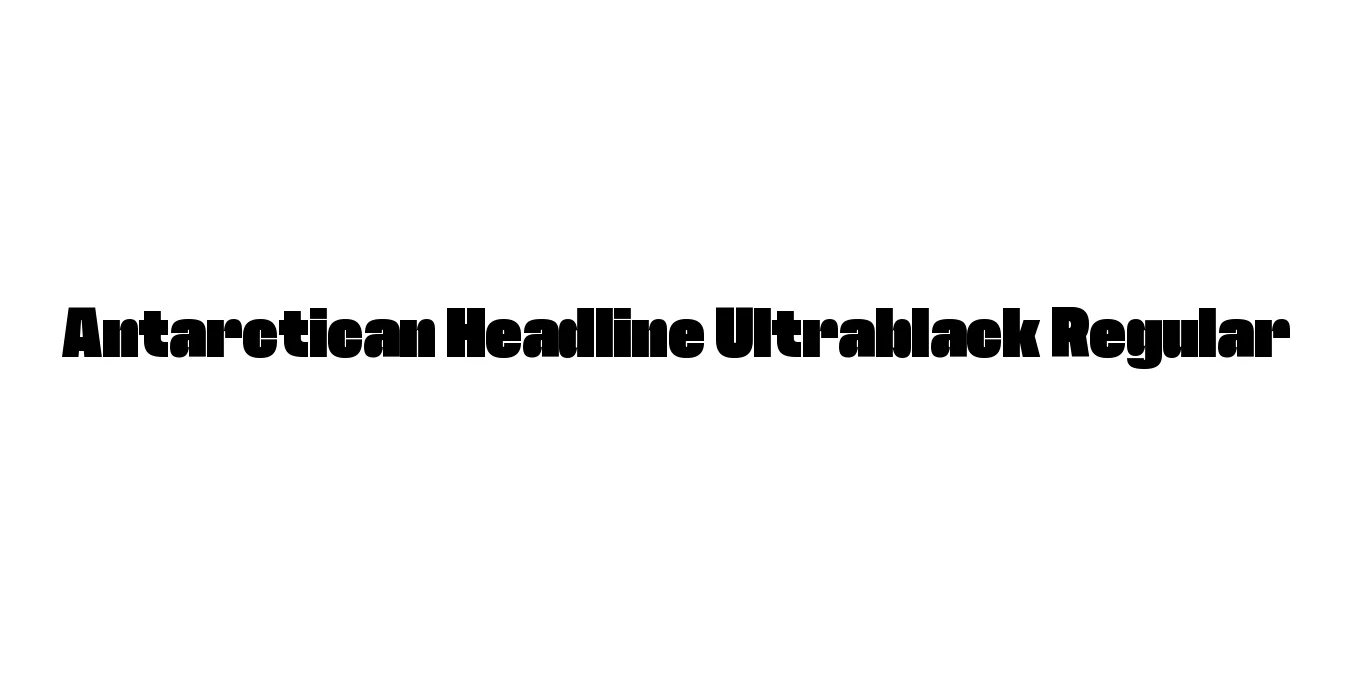
Antarctican Headline Ultrablack Regular
Designed by James Edmondson
| Font Name | Antarctican Headline Ultrablack |
| Designer | James Edmondson |
Antarctican Headline Ultrablack Regular is a powerhouse of a typeface, part of the larger Antarctican family designed by James Edmondson. Drawing inspiration from the rugged, functional lettering found on shipping containers and scientific equipment in the South Pole, this font prioritizes clarity and a raw, industrial aesthetic. The Ultrablack weight pushes the boundaries of stroke thickness, creating a dense and commanding presence that captures attention immediately.
As a Headline variant, this font is meticulously spaced and balanced for display use. It eliminates unnecessary flourishes in favor of geometric precision and high contrast against white space. Whether used in editorial layouts or digital interfaces, it conveys a sense of modern authority and durability, making it an essential tool for designers looking for a bold, unapologetic sans-serif that maintains legibility even at its most extreme weights.
Antarctican Headline Ultrablack Regular Best Uses
Perfect for bold magazine covers and impactful headlines.
Ideal for logos requiring a strong, industrial, and modern identity.
Excellent for large-scale outdoor signage and high-impact digital ads.
Great for hero sections and call-to-action buttons.